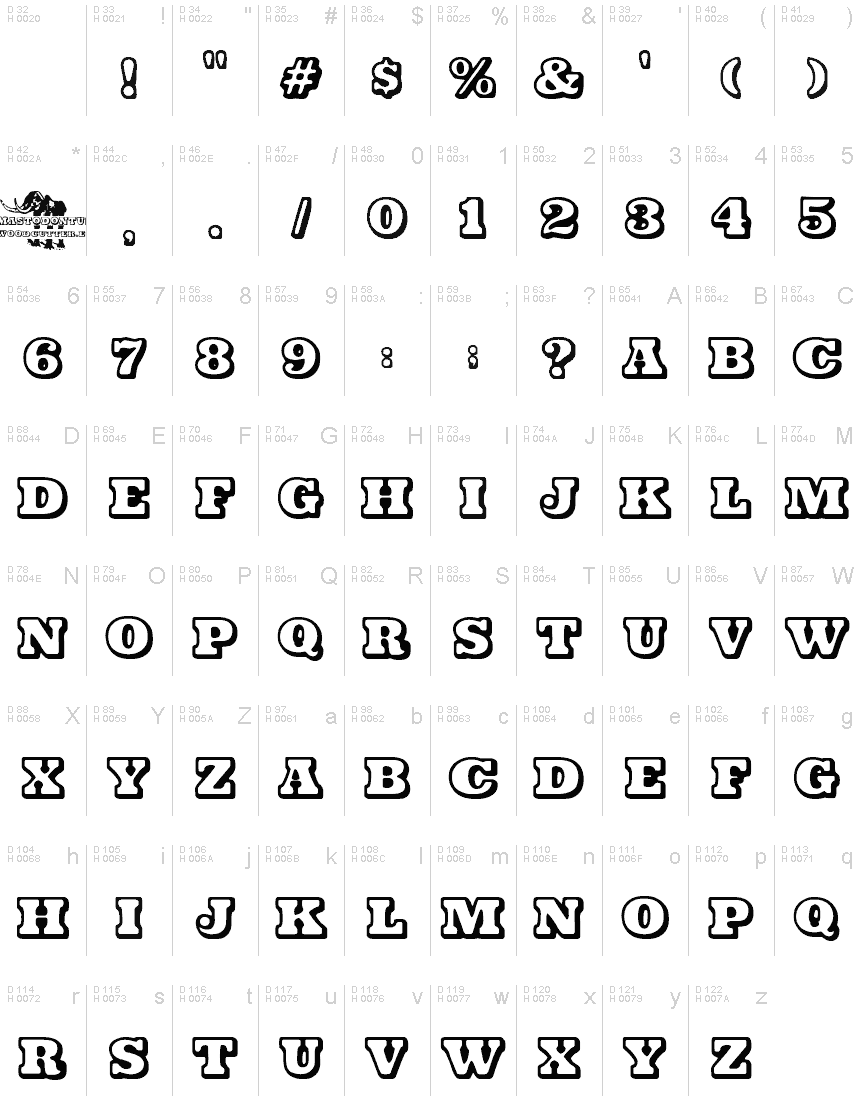
Mastodontus
Mastodontus by Woodcutter is a bold, expanded display font that exudes a commanding presence. Its distinctive design features sharp, angular serifs and a robust, imposing aesthetic, making it ideal for attention-grabbing headlines, impactful branding, and eye-catching typography.
The font's expansive letterforms and weighted strokes create a striking, almost prehistoric feel, evoking a sense of power and solidity. Its unique character shapes and deliberate asymmetries contribute to a bold, unconventional style that stands out in any design composition.
Mastodontus shines in a variety of applications, from editorial layouts and advertising campaigns to packaging design and product branding. Its versatile nature allows it to seamlessly transition between digital and print mediums, making it a versatile choice for designers seeking a font that commands attention and leaves a lasting impression.